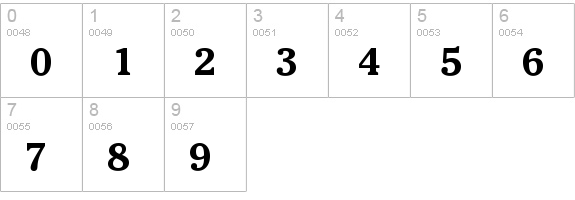
Cheltenham Bold Font Details
Cheltenham Bold is a strong, high-contrast variant in the Cheltenham typeface family \xE2\x80\x94 well suited to headlines, attention-grabbing titles, and strong calls-to-action.
Cheltenham Bold is a classic and timeless font that exudes elegance and sophistication. Its bold and commanding presence makes it perfect for headlines, titles, and logos. The strong, clean lines of this font give it a modern edge while still retaining a sense of traditional charm. The versatility of Cheltenham Bold makes it suitable for a wide range of design projects, from branding to editorial design. Whether you're creating a sleek and professional business card or a striking poster, Cheltenham Bold is sure to make a statement. Best of all, Cheltenham Bold is available for free download at FontsMarket.com. This means you can add this stylish font to your collection without breaking the bank. So why wait? Download Cheltenham Bold today and elevate your designs with its bold and authoritative presence.